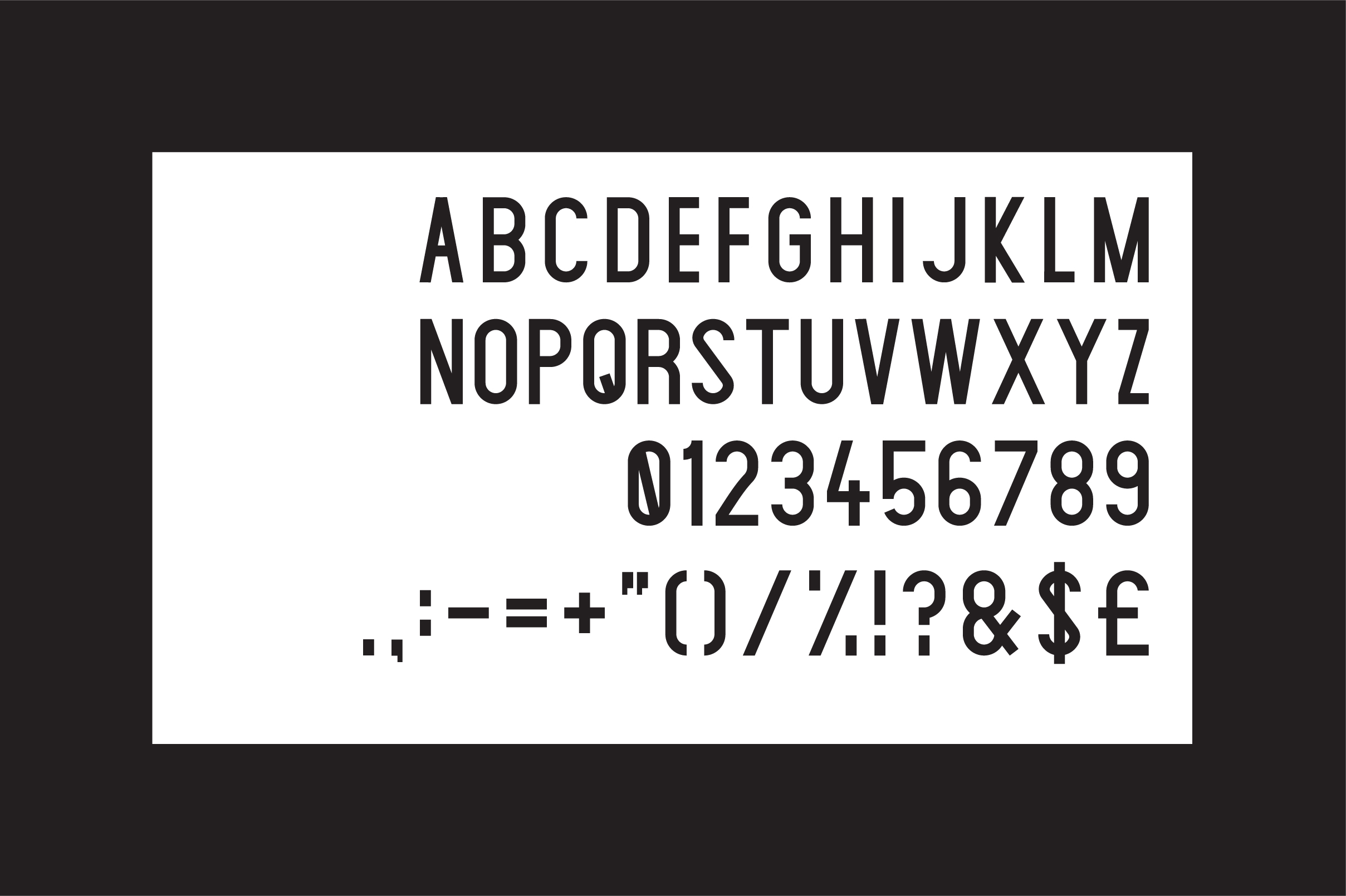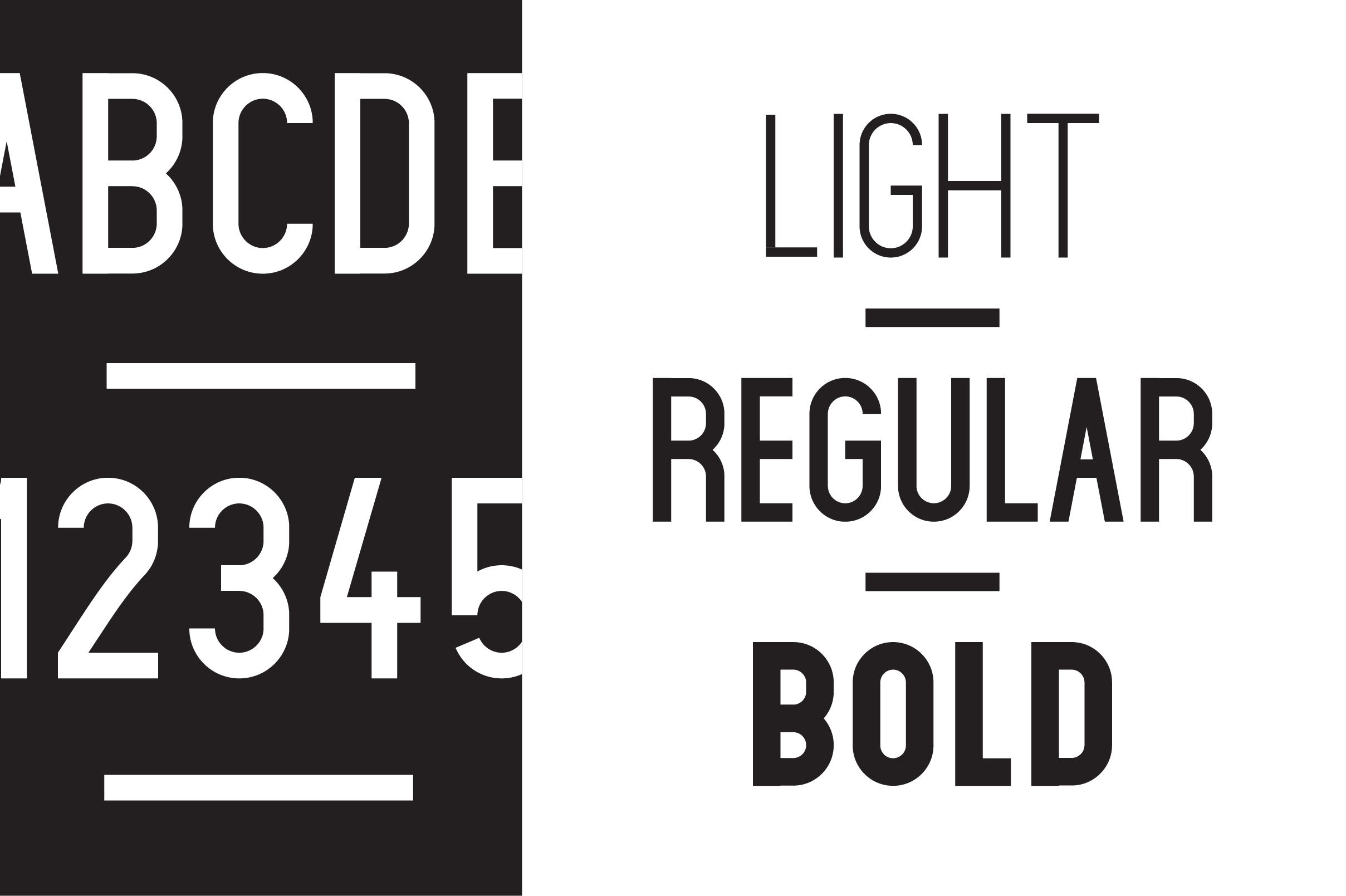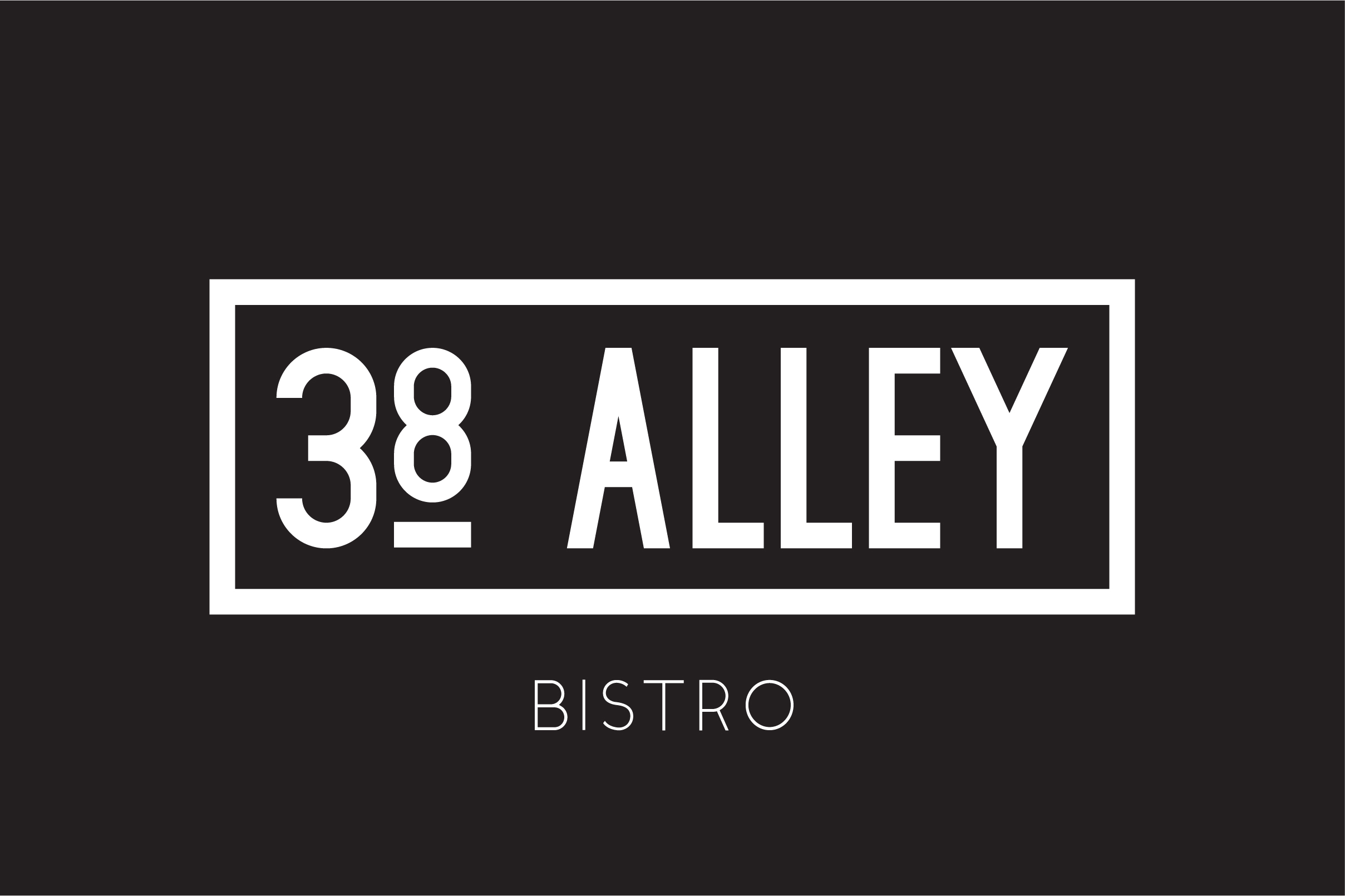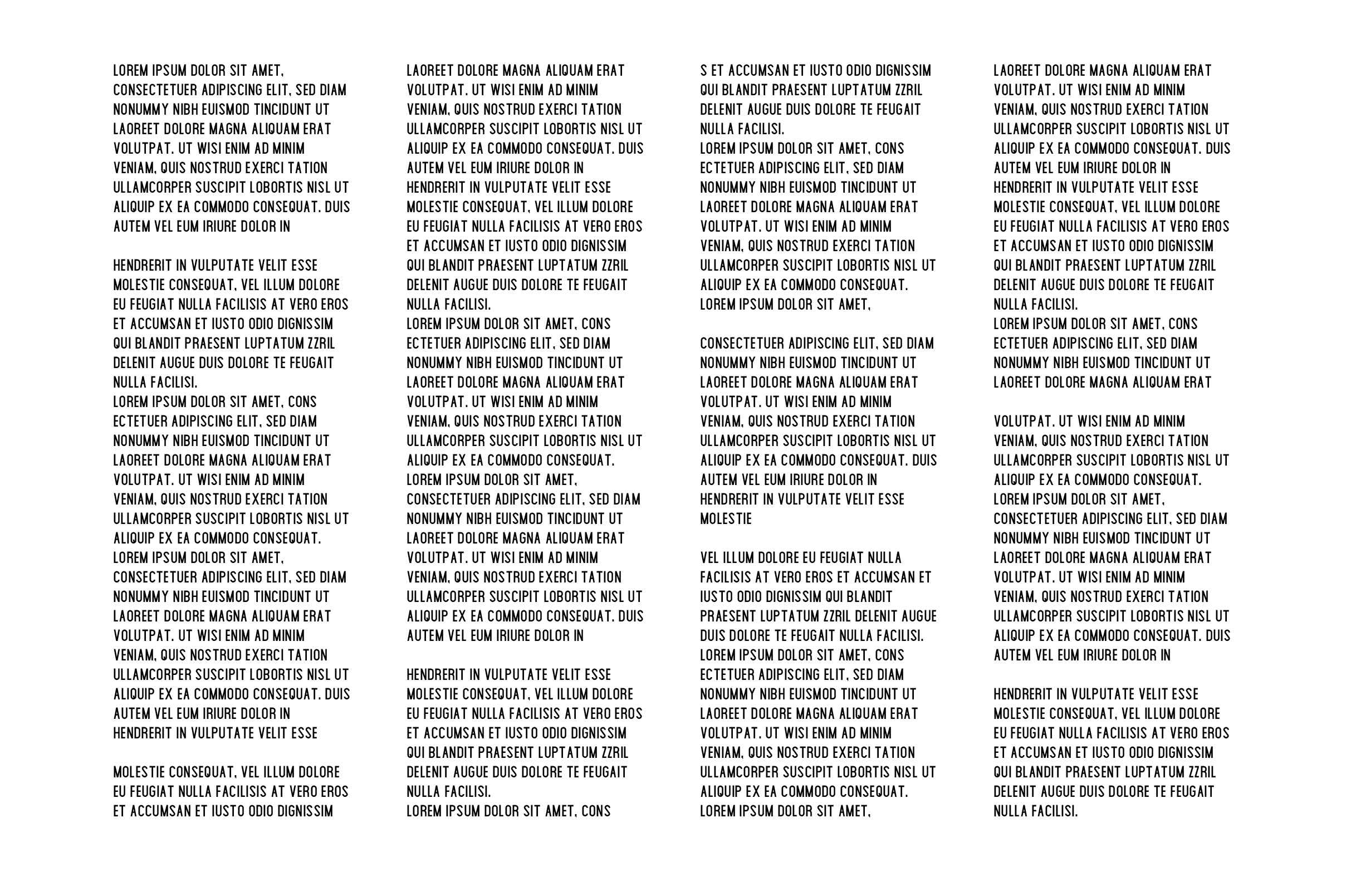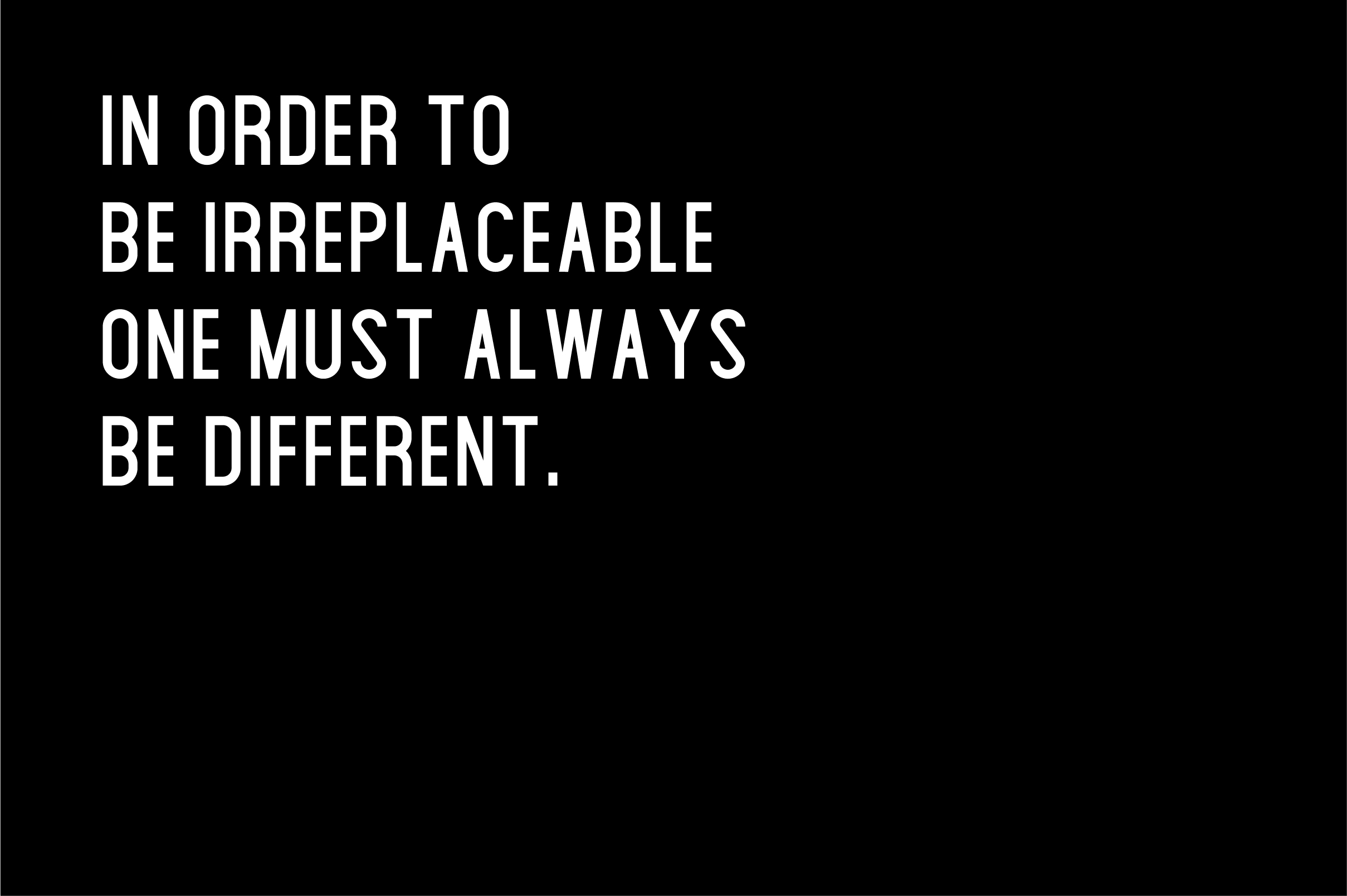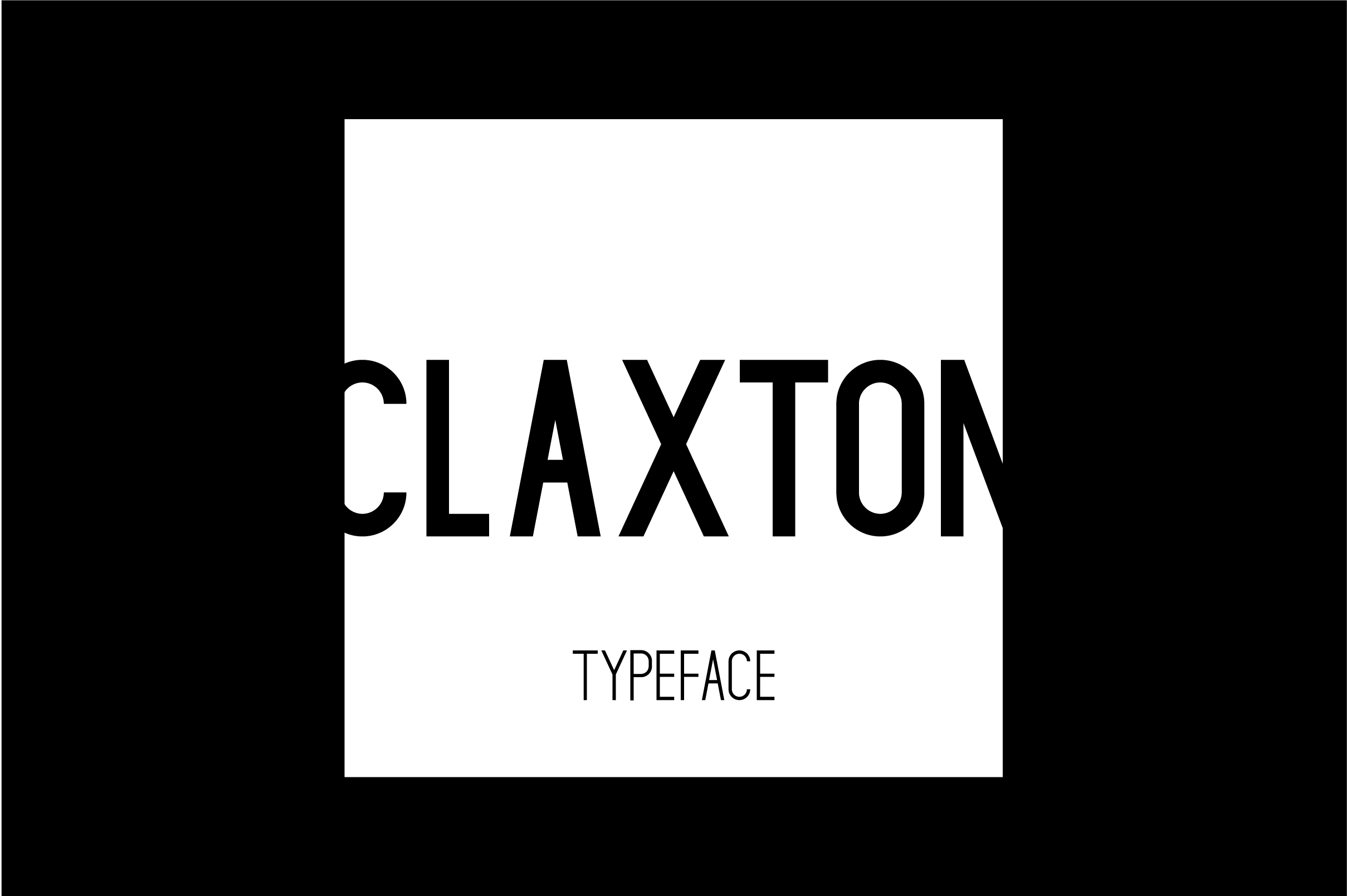
Discover the Elegance of Claxton Font: A Stylish Choice for Sophisticated Branding
Are you on the hunt for a typeface that exudes simplicity, sophistication, and an upscale feel? Look no further than the Claxton Font. This stylish and refined font is perfect for designers and crafters seeking to elevate their branding projects with a touch of elegance. In this article, we’ll delve into the world of Claxton Font, exploring its features, benefits, and uses, as well as provide tips on how to make the most of this versatile typeface.
What is Claxton Font?
Claxton Font is a modern, sans-serif typeface designed to make a statement. With its clean lines, subtle curves, and balanced proportions, Claxton is an excellent choice for brands aiming to convey a sense of sophistication and refinement. The font comes in three weights, offering flexibility and versatility for various design applications.
Key Features of Claxton Font
- Simplistic yet Sophisticated Design: Claxton Font boasts a minimalist aesthetic that is both stylish and understated. Its simple design makes it easy to read and recognize, while its sophisticated feel adds a touch of luxury to any brand.
- Three Weights for Added Versatility: The Claxton Font family includes three weights, allowing designers to choose the perfect style to suit their project’s needs. Whether you’re looking for a light, elegant feel or a bold, statement-making font, Claxton has got you covered.
- Excellent for Branding and Marketing: Claxton Font is specifically designed with branding and marketing in mind. Its clean and modern design makes it perfect for logos, business cards, brochures, and other marketing materials.
Benefits of Using Claxton Font
So, why choose Claxton Font for your design projects? Here are just a few benefits of using this stylish typeface:
- Instantly Elevate Your Brand: With Claxton Font, you can instantly add a touch of sophistication and elegance to your brand. Its refined design and luxurious feel make it perfect for high-end brands and businesses.
- Improve Readability: Claxton’s clean and simple design ensures excellent readability, making it easy for your audience to quickly understand your message.
- Flexibility and Versatility: With three weights to choose from, Claxton Font can be used in a wide range of design applications, from digital media to print materials.
Tips for Using Claxton Font
To get the most out of Claxton Font, here are a few tips to keep in mind:
- Pair with Images and Graphics: Claxton Font pairs beautifully with high-quality images and graphics. Use it to add a touch of sophistication to your visual content.
- Experiment with Weights: Don’t be afraid to experiment with the different weights of Claxton Font. Mixing and matching weights can add visual interest and create a unique look.
- Use for Headings and Titles: Claxton Font is perfect for headings and titles. Its bold and elegant design makes it ideal for grabbing attention and adding emphasis.
| Font Name | Claxton Font |
| Author | Mike Hill |
In conclusion, Claxton Font is a stylish and sophisticated typeface that is perfect for designers and crafters seeking to elevate their branding projects. With its clean design, subtle curves, and balanced proportions, Claxton is an excellent choice for brands aiming to convey a sense of luxury and refinement. Whether you’re looking for a font for logos, business cards, or marketing materials, Claxton Font is a versatile and elegant solution. So why wait? Give Claxton Font a try today and experience the power of elegant typography for yourself!
Enjoy the simplicity and sophistication of Claxton Font – a perfect choice for up-market branding!